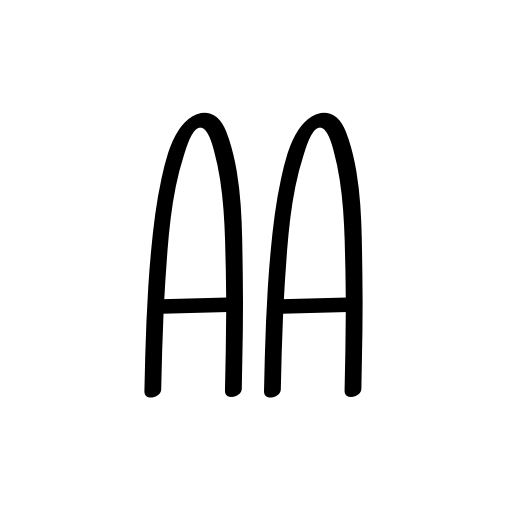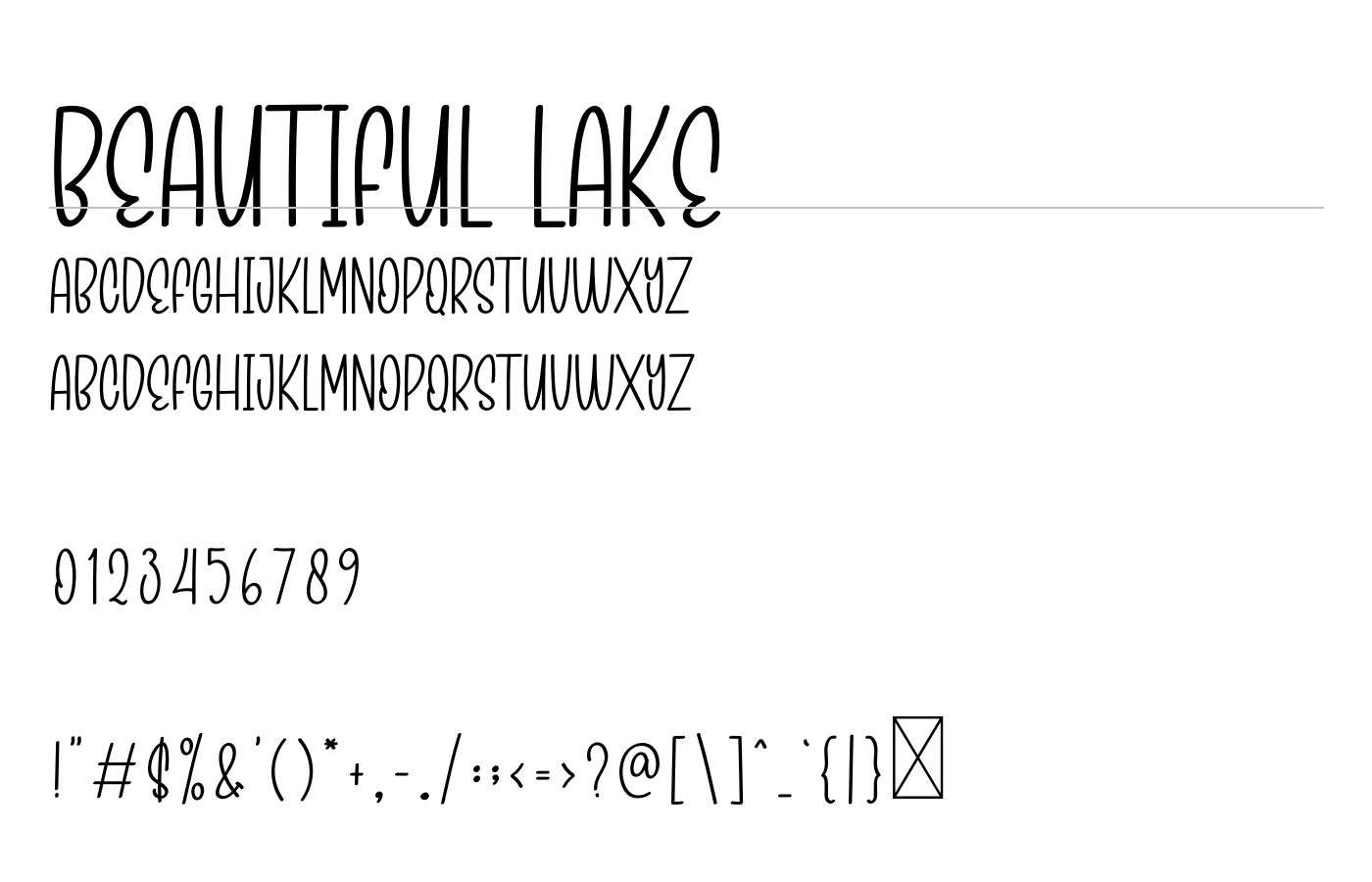
Beautiful Lake is a narrow, tall sans serif font with a hand-drawn, whimsical character. Its thin strokes and playful letterforms create a light, airy feeling perfect for adding a quirky and informal touch to designs. This font works well for creative branding, headlines, and projects seeking a friendly, approachable style.
Beautiful Lake Font
About Beautiful Lake Font